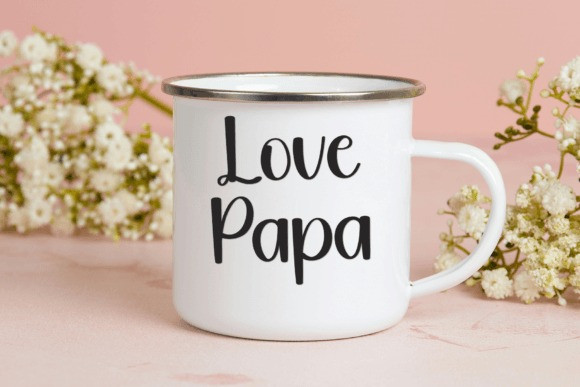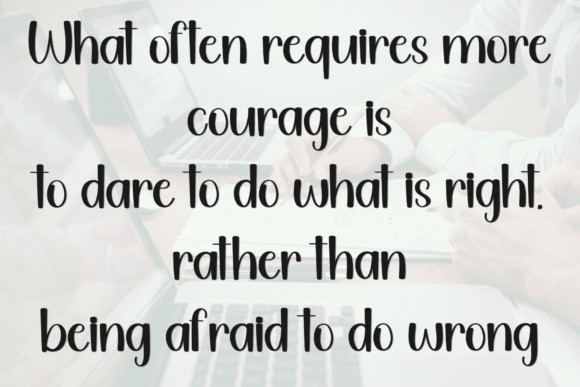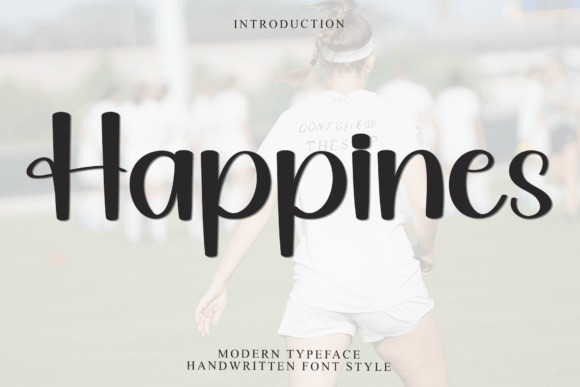
Happines Moment Font
Happines Moment Font is a flowing handwritten font, described by an elegant touch, perfect for your favorite projects. Fall in love with its incredibly distinct and timeless style and use it to create spectacular designs!